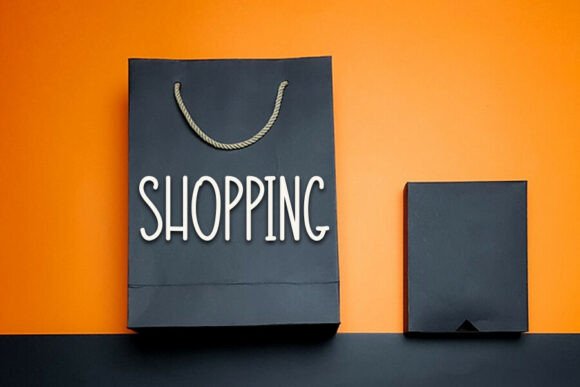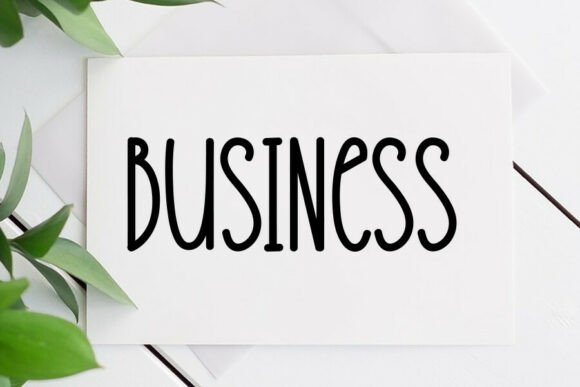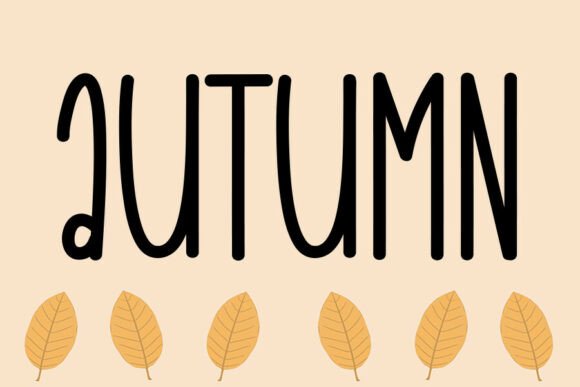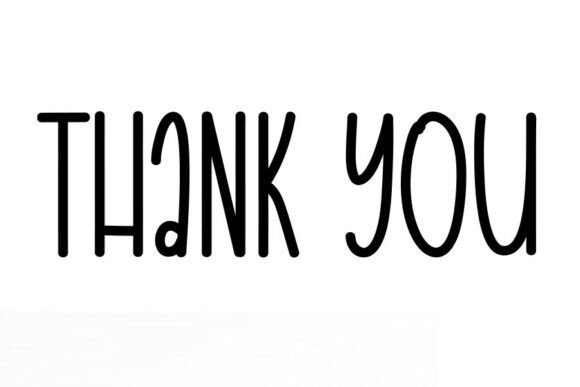
The Perfect Font for Your Heartfelt Projects
Have you ever found yourself staring at a blank design screen, trying to come up with the perfect way to express your emotions? We’ve all been there. But what if you had the perfect tool to bring your heartfelt projects to life? Enter Boyfriends Font, a tall, playful handwritten font that’s designed to add warmth and personality to your designs.
With its slim, elongated characters and clean handwritten style, Boyfriends Font is perfect for Father’s Day designs, greeting cards, t-shirts, posters, and more. Whether you’re a seasoned designer or just starting out, this font is a valuable addition to your toolkit. Its unique blend of charm and character makes it ideal for personal and emotional projects, and its versatility is sure to inspire your creativity.
Boyfriends Font Key Features
- Font Family: Boyfriends is a unique font family designed by Typographer Matt with a mix of modern and classic styles.
- Unique Characteristics: The font features a distinctive, hand-drawn feel with subtle imperfections, giving it a personal and emotional touch.
Boyfriends Font Review
I recently had the chance to work with the Boyfriends Font, and I must say it’s been an interesting experience. Here’s my honest review:
- Unique Character: The Boyfriends Font has a distinct personality that can add a touch of playfulness to your design projects.
- Casual Feel: This font is perfect for creating a relaxed, casual atmosphere in your designs, making it ideal for social media posts, blog headers, or even product labels.
- Easy to Read: Despite its quirky nature, the Boyfriends Font is surprisingly easy to read, even at smaller font sizes.
- Limited Versatility: The Boyfriends Font may not be suitable for formal or professional projects, as its casual nature can come across as unprofessional.
- Not Ideal for Small Text: While the font is easy to read, it can be challenging to use at very small font sizes due to its playful nature.
- Distractions: The font’s unique character can sometimes be distracting, especially if you’re trying to convey a serious message.
The Boyfriends Font is a great addition to any designer’s toolkit, but it’s essential to use it judiciously. It’s perfect for projects that require a lighthearted, casual tone, but it may not be the best choice for more formal or serious designs.
The Boyfriends Font is a playful and informal font that is perfect for social media graphics, blog posts, and other casual designs.
Some tips for getting the most out of the Boyfriends Font include:
- Using it in combination with bold and italic styles to add emphasis.
- Pairing it with bright and bold colors to create a fun and eye-catching design.
- Using it in a mix of uppercase and lowercase letters to add visual interest.